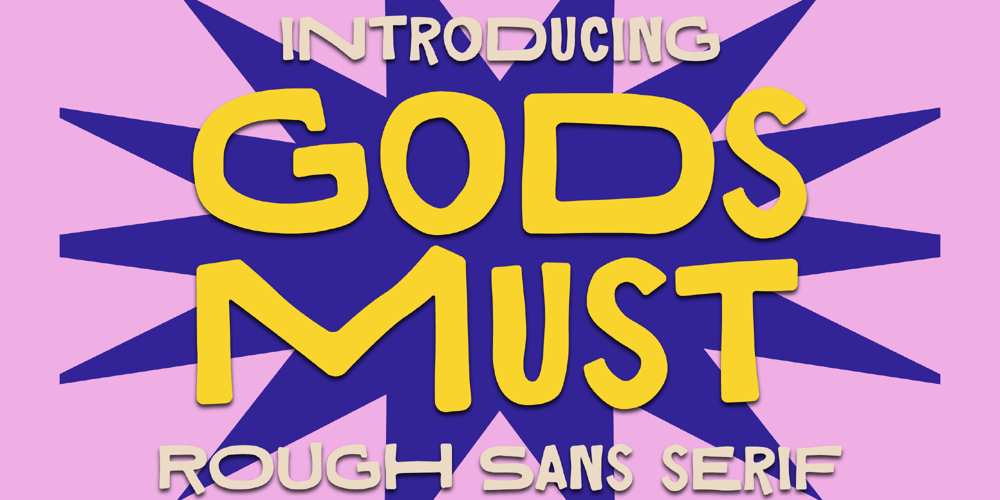
Gods Must Font Family was designed by Heru Utama Putra and published by Letterena Studios. Gods Must contains 2 styles and family package options. A serif modern and classic typeface that has its own unique style & modern look.This typeface is perfect for an elegant & luxury logo, book or movie title design, fashion brand, magazine, clothes, lettering, quotes, and so much more.**Uppercase